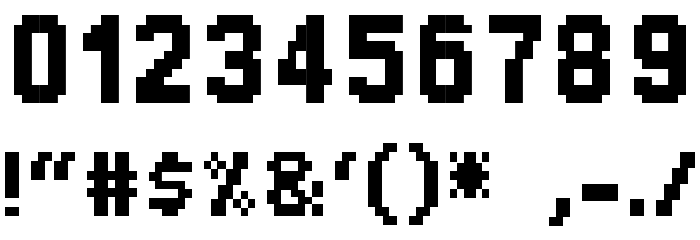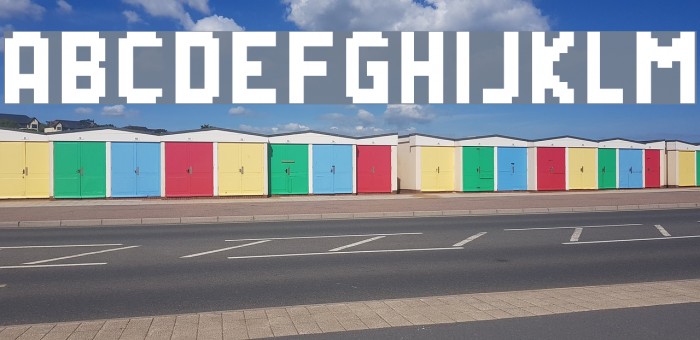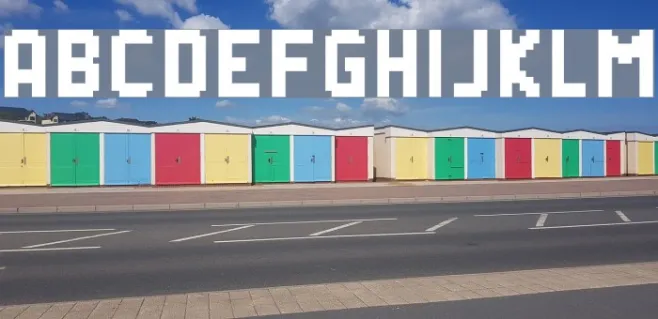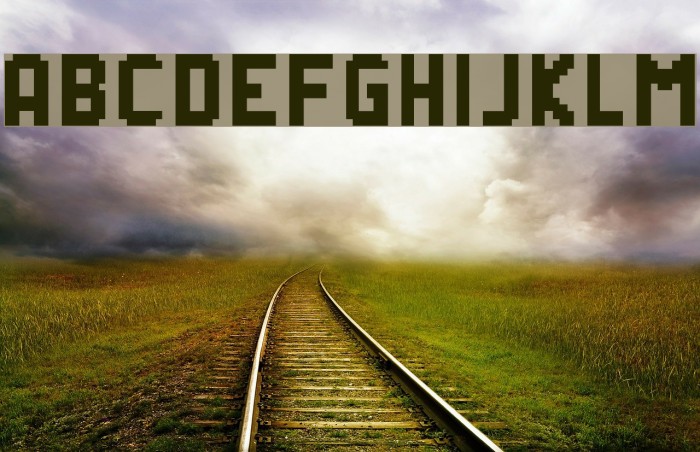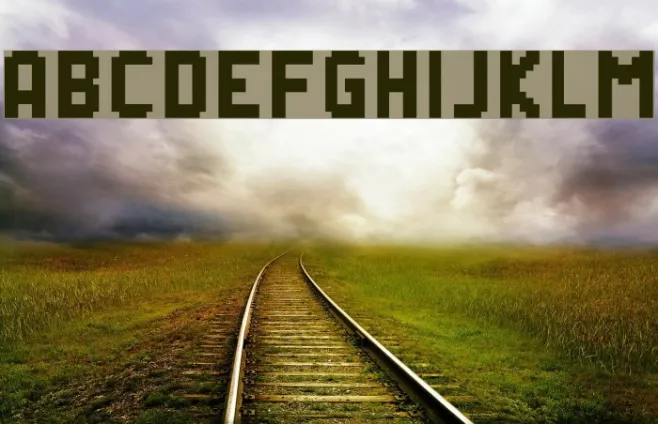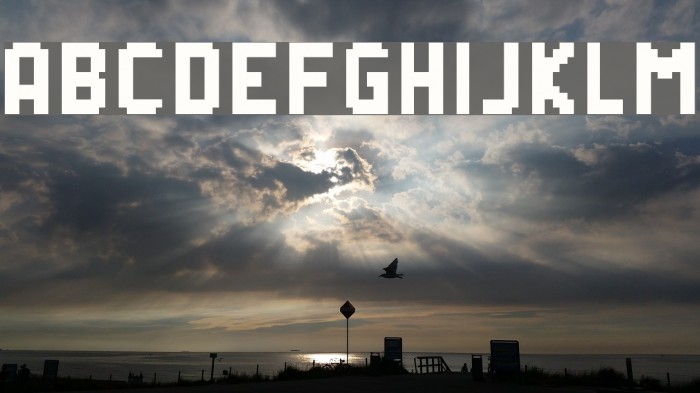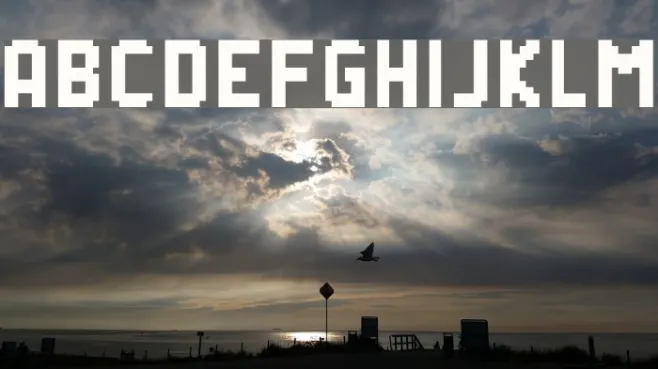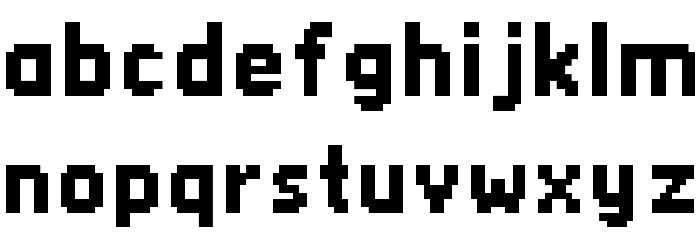
Silom Bold Font
Silom Bold Description
This font features a bold, blocky design with a pixelated aesthetic reminiscent of early digital displays and video games. The characters are uniformly thick, with a consistent stroke width that gives it a strong, impactful presence. The uppercase and lowercase letters maintain a uniform height, contributing to its monospaced appearance. The numerals and special characters follow the same design principles, ensuring a cohesive look across all glyphs. Its geometric shapes and sharp edges make it ideal for digital and retro-themed projects.
| Overall Style | Retro, Digital |
| Use Case | Headlines, Logos, Digital displays |
| Proposed Projects | Ideal for video game design, retro-themed graphics, digital art, and tech-related branding. |